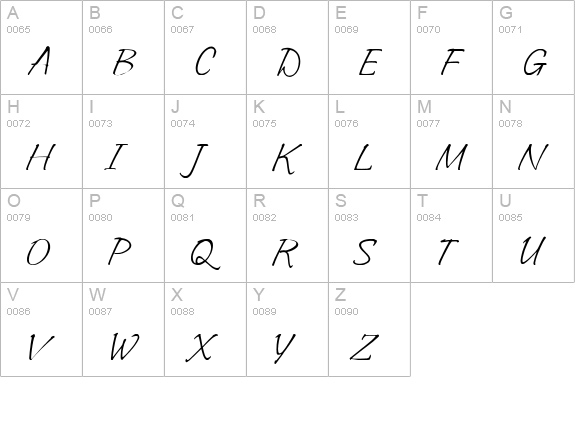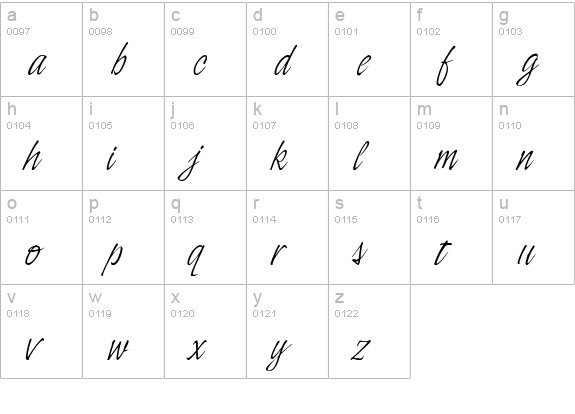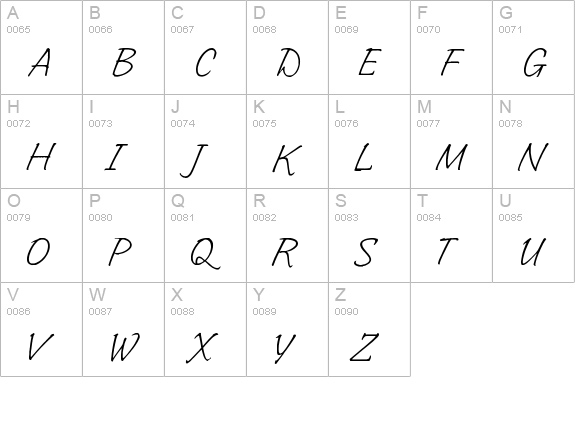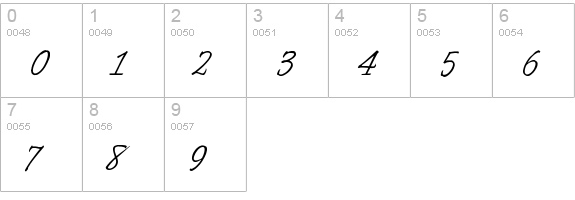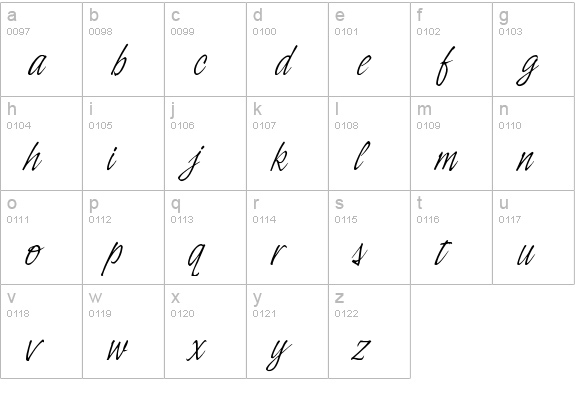
Indy Italic Plain Font Details
Indy Italic Plain is a distinctive, italic variant in the Indy typeface family \xE2\x80\x94 well suited to design and typography projects.
Indy Italic Plain is a stunning font that effortlessly combines elegance and modernity. With its sleek and slanted letterforms, this font exudes a sense of sophistication and style. It is perfect for projects that require a touch of uniqueness and creativity. The graceful curves and slender strokes of Indy Italic Plain make it an ideal choice for branding, logo design, and editorial work. Its versatility allows it to be used in a variety of contexts, from fashion magazines to luxury product packaging. One of the best things about Indy Italic Plain is that it is available for free! You can easily download this font from FontsMarket.com, a website dedicated to providing high-quality fonts to designers and creatives. Indy Italic Plain offers a wide range of characters, including uppercase letters, lowercase letters, numbers, and punctuation marks. Each character is meticulously crafted to ensure a seamless and visually appealing result. Whether you're designing a website, creating an invitation, or working on a poster, Indy Italic Plain will add a touch of sophistication to your project. Its clean and legible design ensures that your message is conveyed with clarity and style. Download Indy Italic Plain today from FontsMarket.com and elevate your designs to new heights. With its free availability and stunning aesthetics, this font is a must-have for any designer looking to make a bold statement.